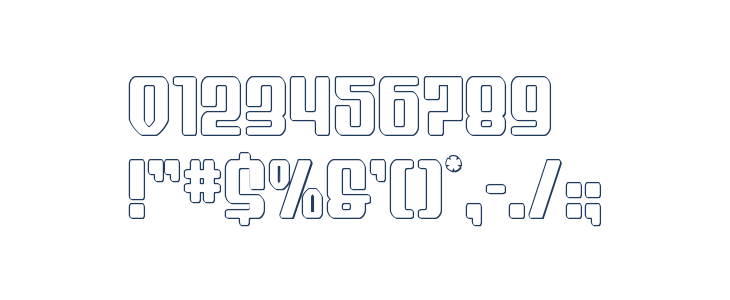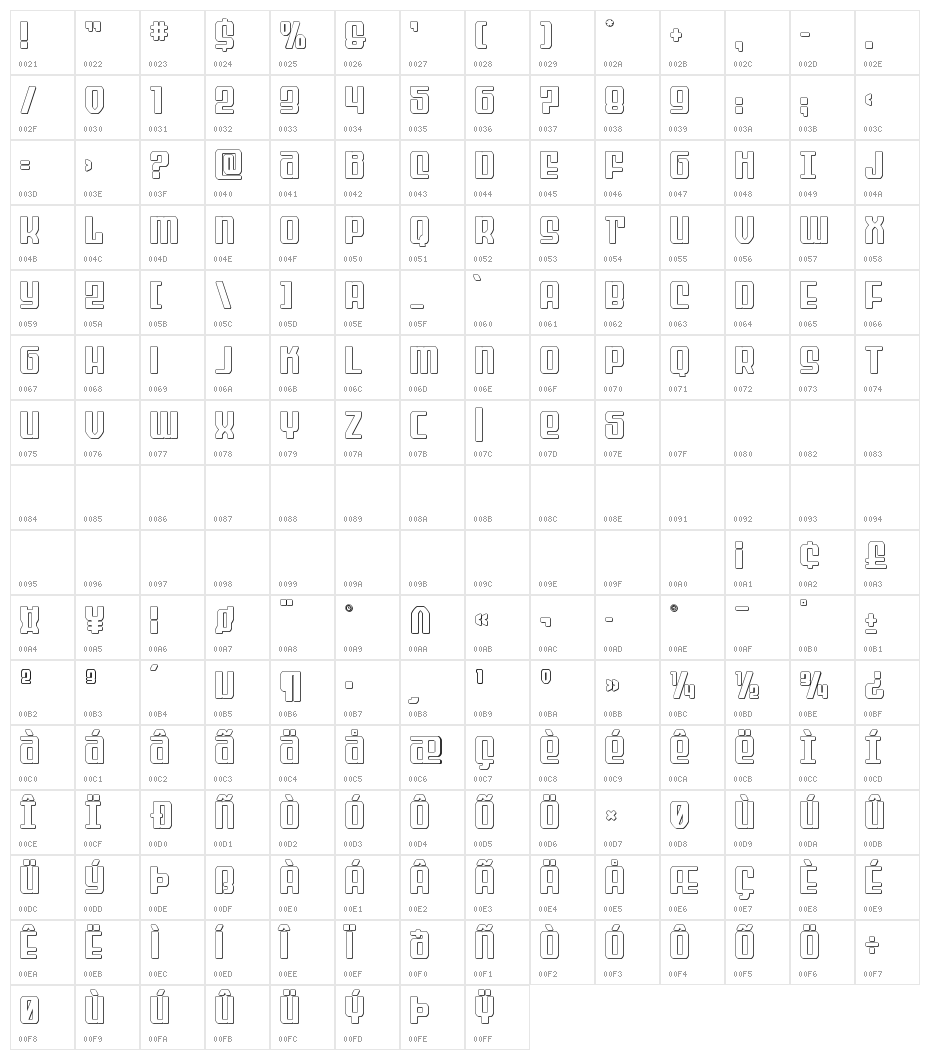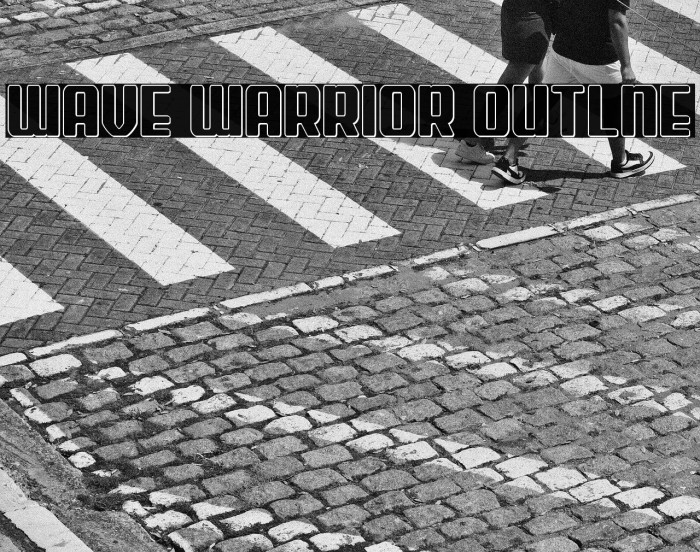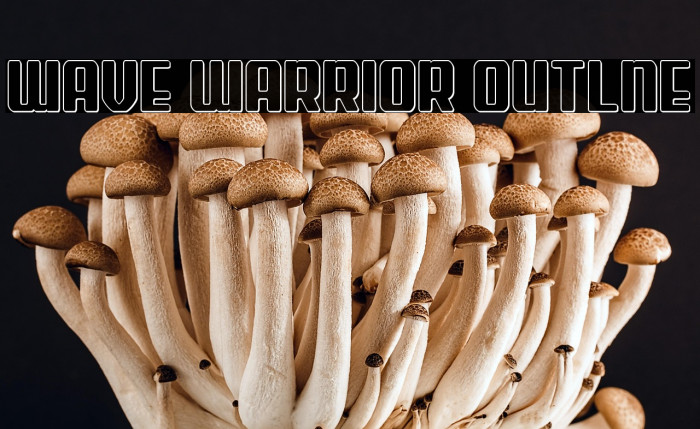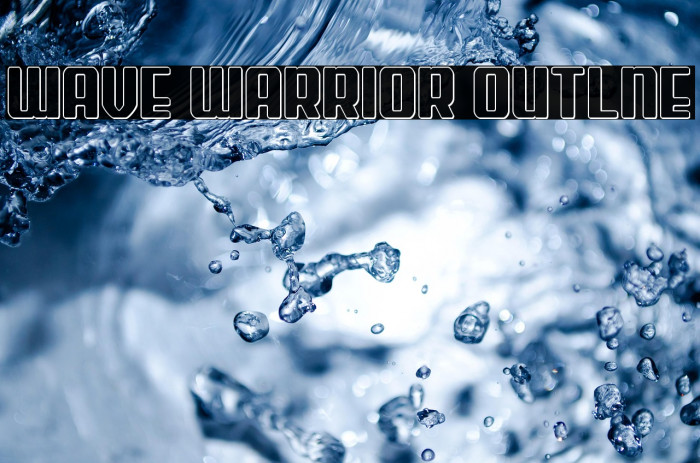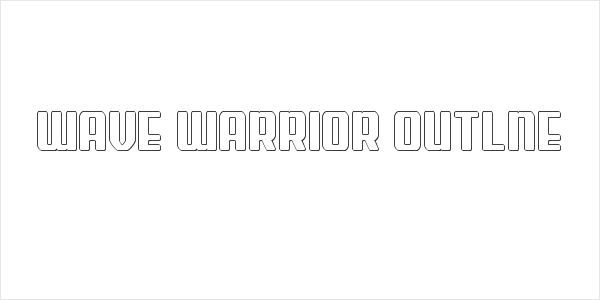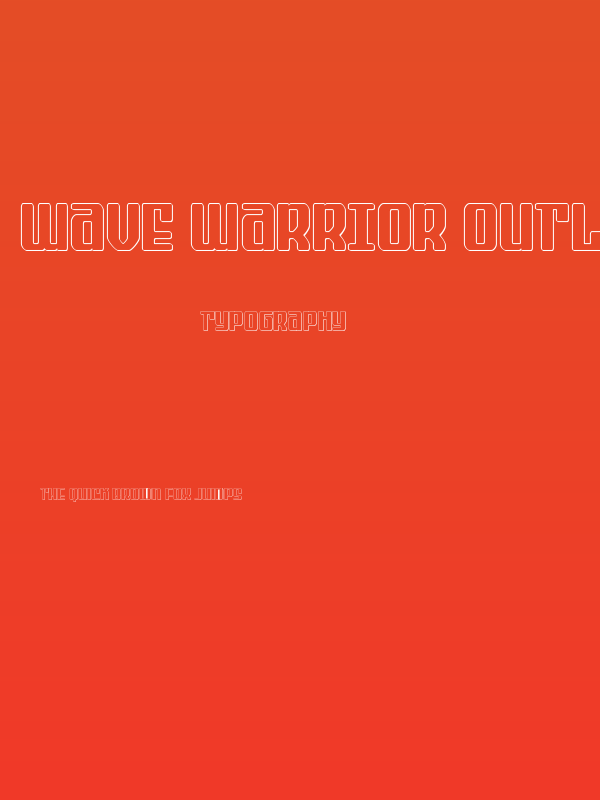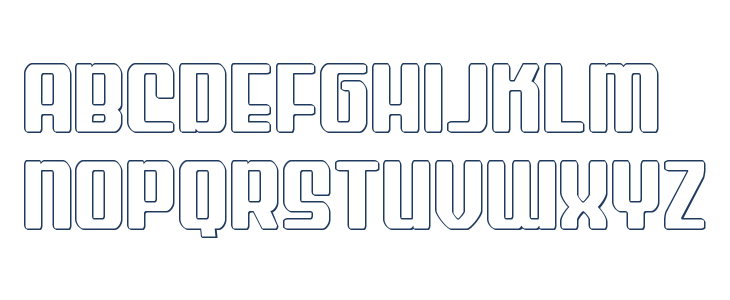
Wave Warrior Outlne Font
Wave Warrior Outlne Description
This font features a bold, outlined style with a geometric and futuristic appearance. The characters are uniformly structured with consistent line thickness, creating a cohesive and modern look. The uppercase and lowercase letters share similar design traits, enhancing readability while maintaining a unique aesthetic. The numbers and special characters are designed to match the overall style, making them suitable for a variety of applications. The font's outline nature gives it a distinctive edge, making it stand out in any design project.
| Proposed Projects | Ideal for headlines, posters, logos, and branding projects that require a modern and eye-catching design. |